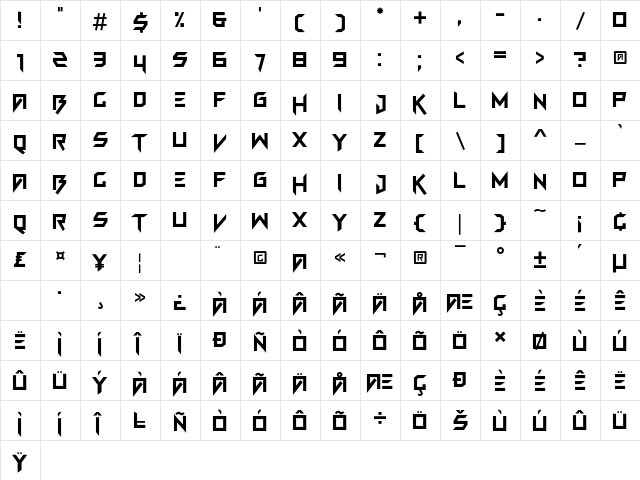
FUN GAMES Regular
Design Context for FUN GAMES Typeface
FUN GAMES has an approachable, lighthearted character — its loose, expressive forms are well-suited to children's content, casual branding, and fun-first design.
Font Pairing: Pairs well with a rounded or humanist sans for body copy, maintaining the friendly tone without relying on FUN GAMES to carry extended reading.
Pro Tip: Avoid using FUN GAMES for long passages of text — it works best for headlines, labels, and short calls to action.